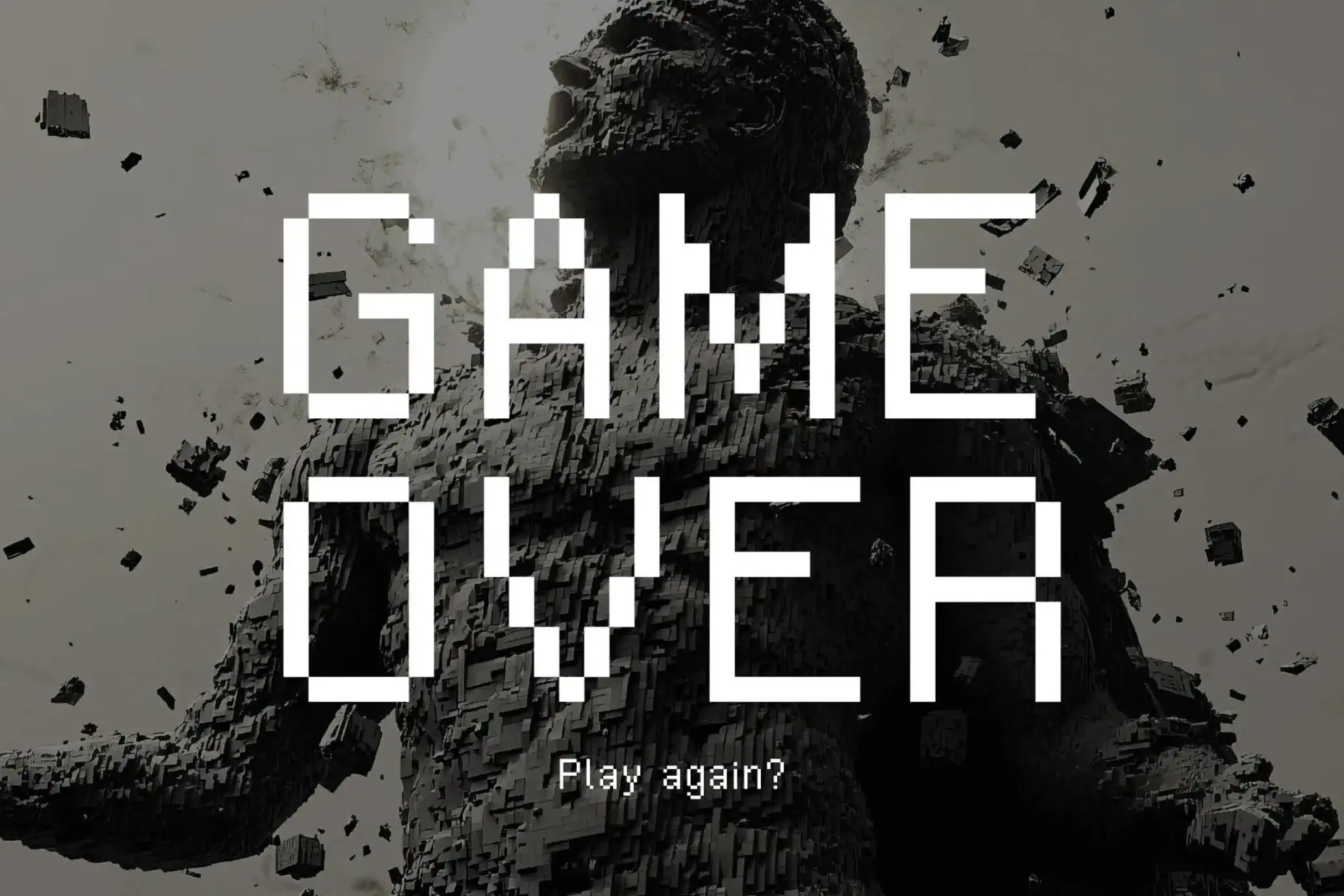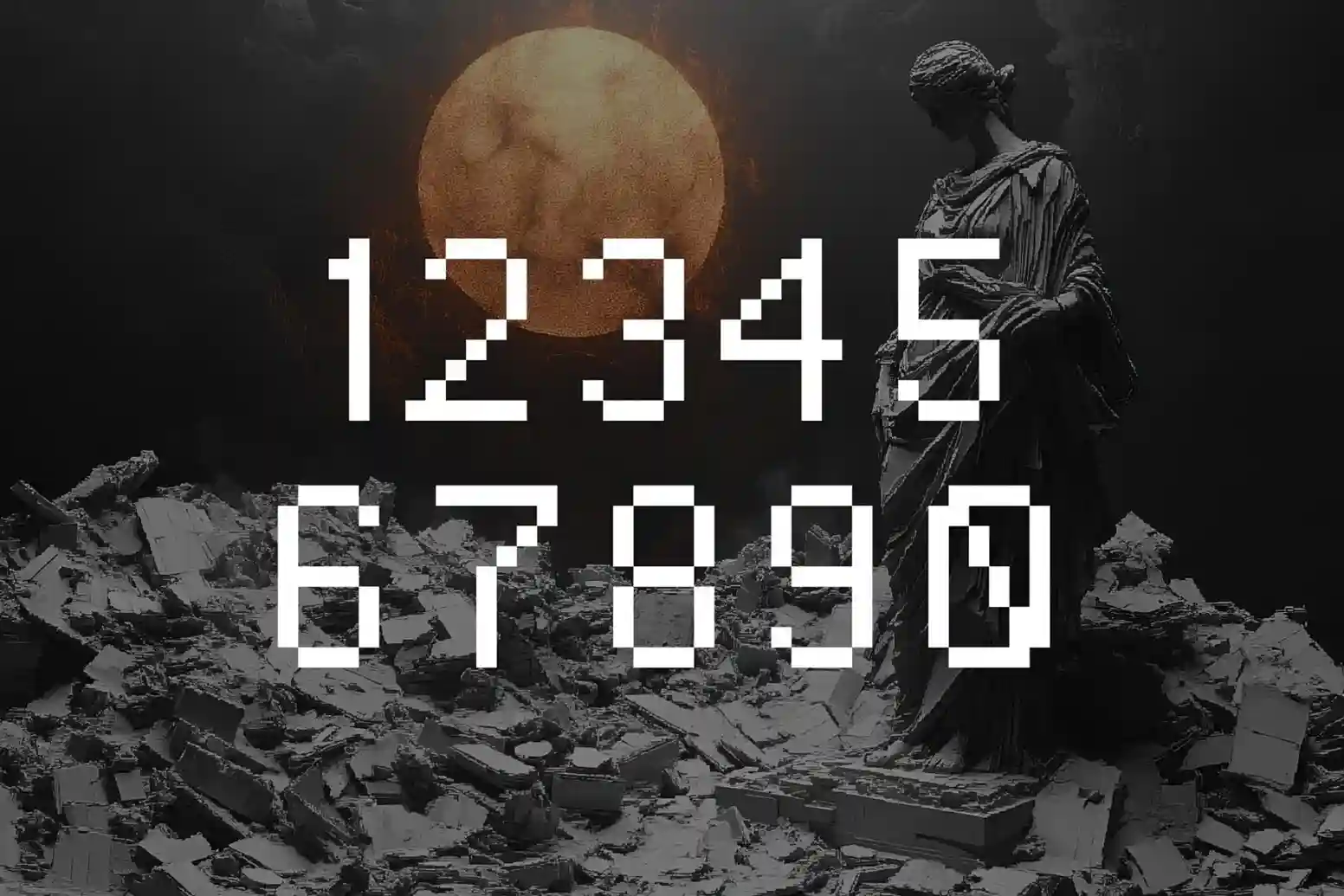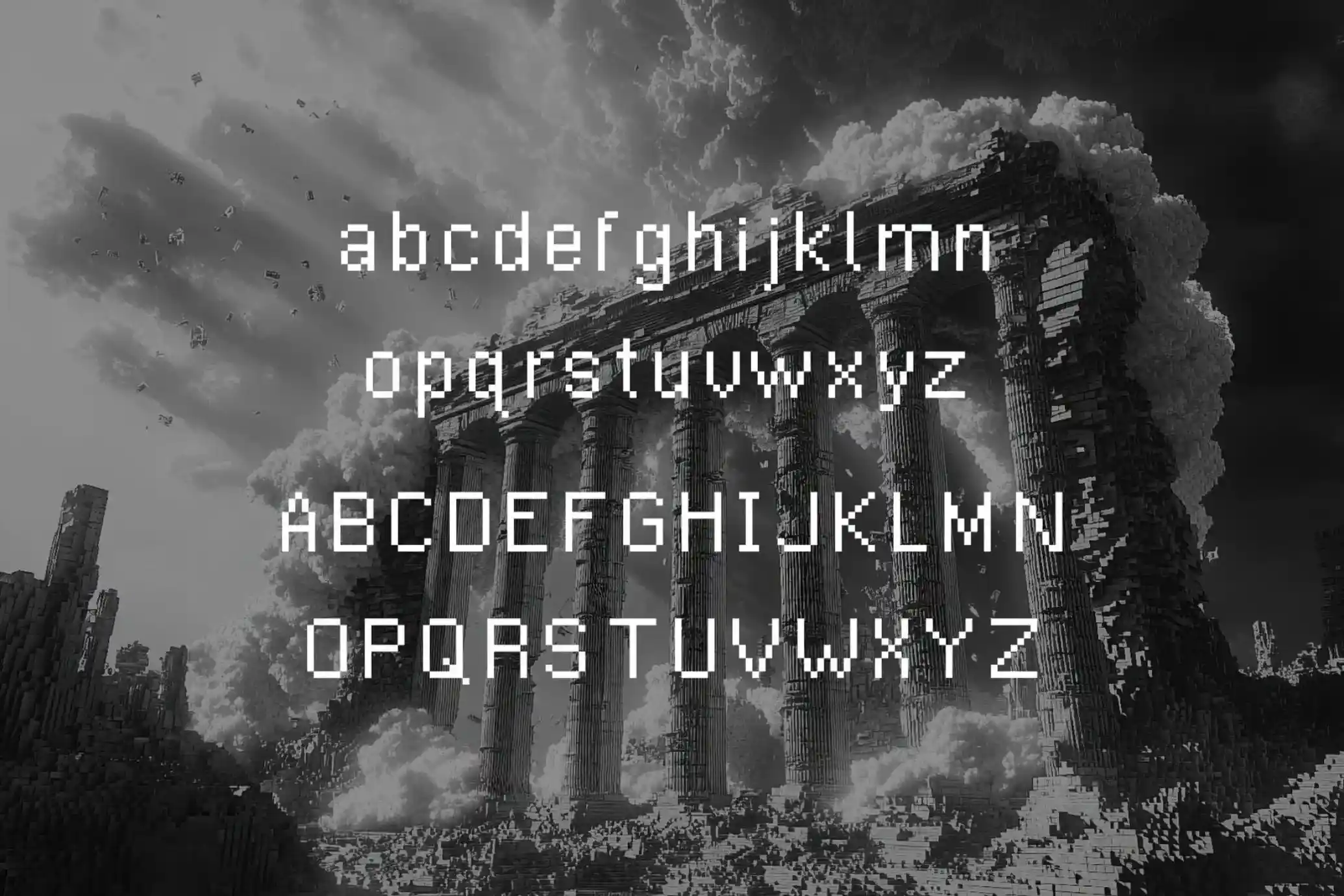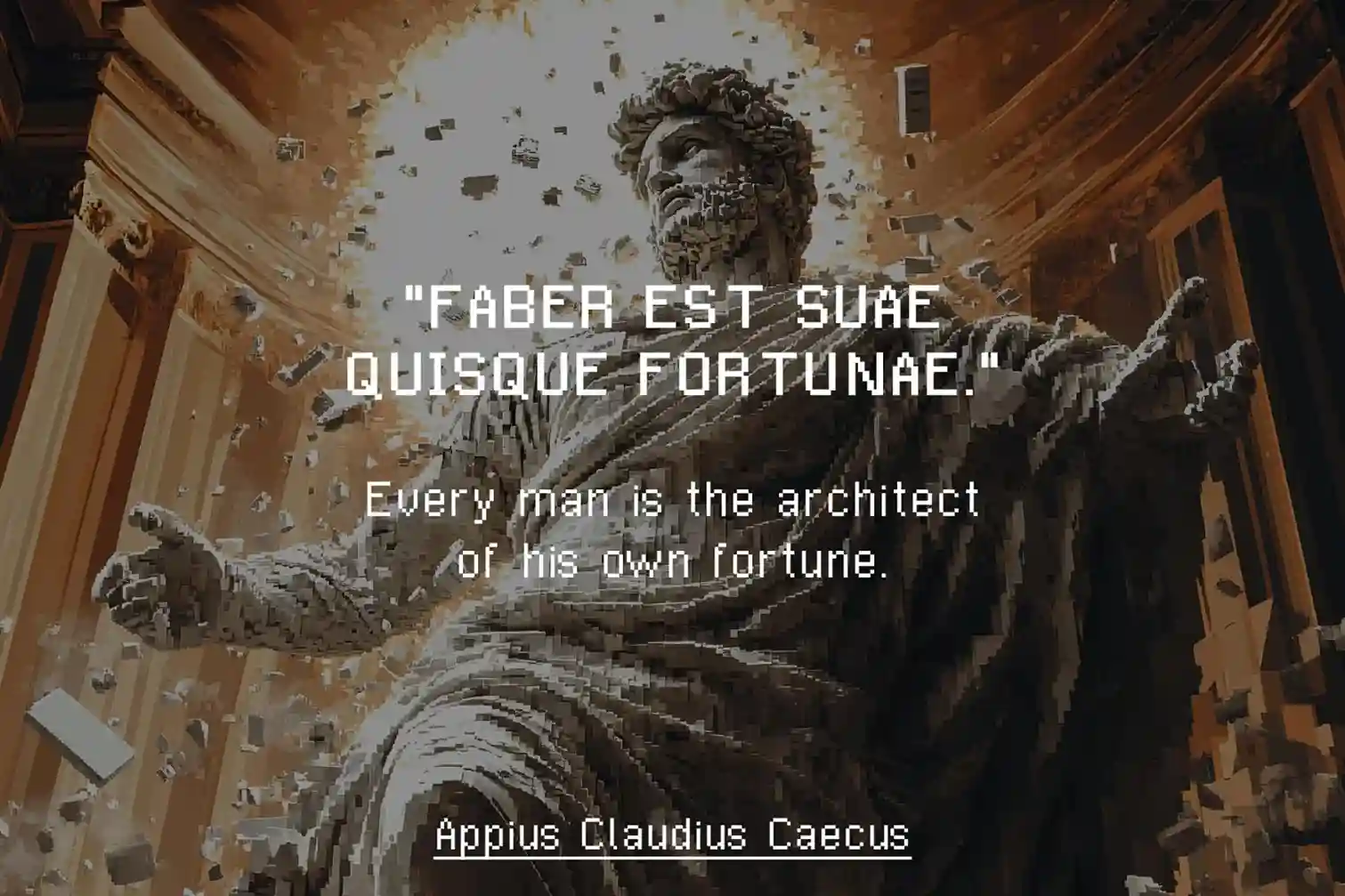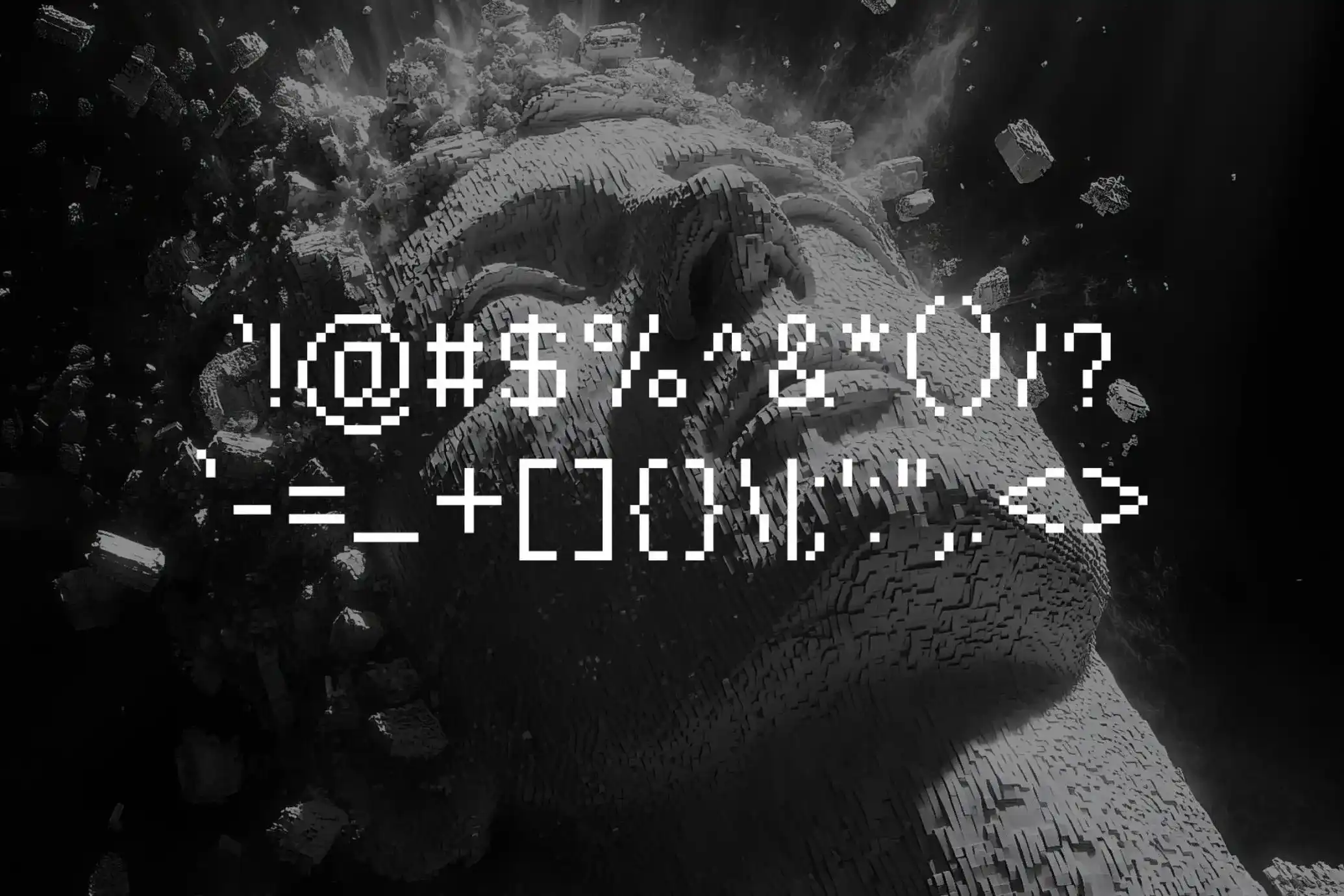
Discover the perfect balance of vintage charm and contemporary elegance with Delicatus, a unique pixel font crafted for designers who appreciate simplicity with style. This font beautifully blends retro gaming vibes with a polished modern twist, making it ideal for anyone looking to add a subtle pixel effect to their creative projects.
Delicatus stands out with its slim, sharp lines and clean pixel structure. It avoids the bulkiness often seen in pixel fonts and offers a much sleeker and more refined look. Whether you’re designing digital products, creating web graphics, or working on nostalgic brand visuals, this font brings an understated elegance that elevates your work effortlessly.
Where You Can Use Delicatus:
Retro game interfaces: Achieve a clean, futuristic pixel look while keeping the vintage feel alive.
Web design & apps: Perfect for modern websites, tech landing pages, and UI designs that need a sharp, minimalist font.
Digital posters & social media graphics: Create eye-catching headers and text overlays with a unique pixel style.
Merchandise & apparel: Ideal for T-shirts, tote bags, and other merch with a cool retro twist.
Branding & logo design: Great choice for tech brands or creative studios that want a modern identity with subtle retro flair.
This font includes uppercase and lowercase characters, numbers, and basic punctuation, ensuring you have everything you need for versatile design applications. Its pixel-based structure looks great at both small and large sizes, offering readability while maintaining that distinctive pixelated vibe.
What makes Delicatus even better is its ability to blend into both playful and professional settings. It’s flexible enough to work for creative agencies, indie game developers, or content creators who want something unique yet functional.
Why Choose Delicatus:
- Minimal, clean, and stylish pixel design
- Inspired by retro gaming with a modern edge
- Crisp legibility with sleek character shapes